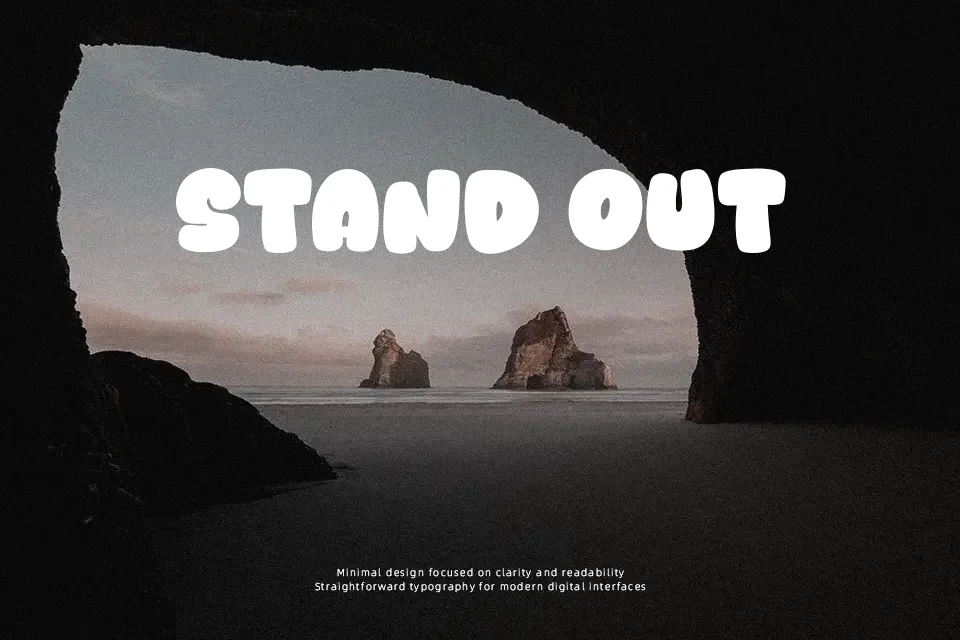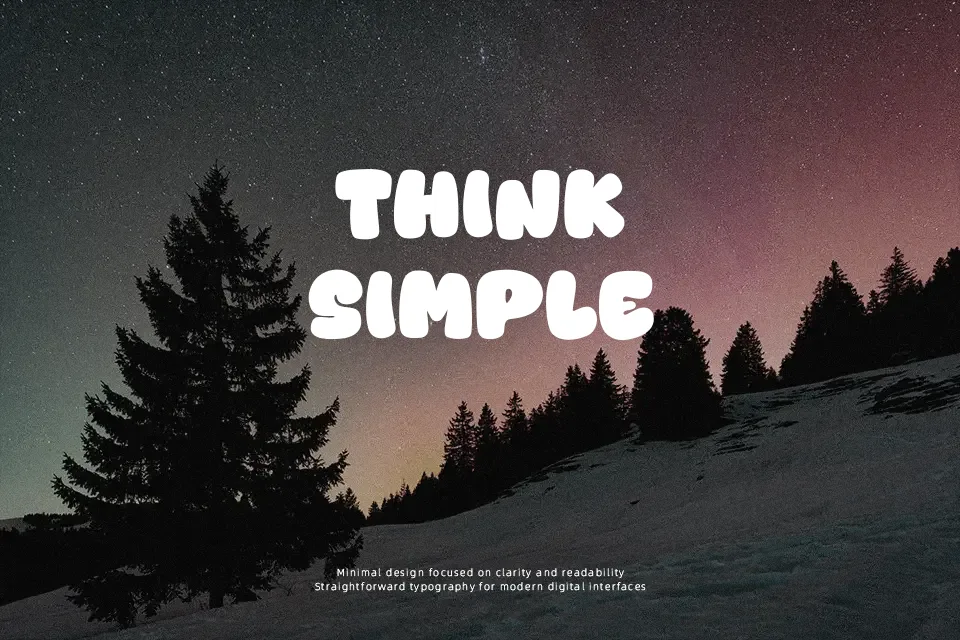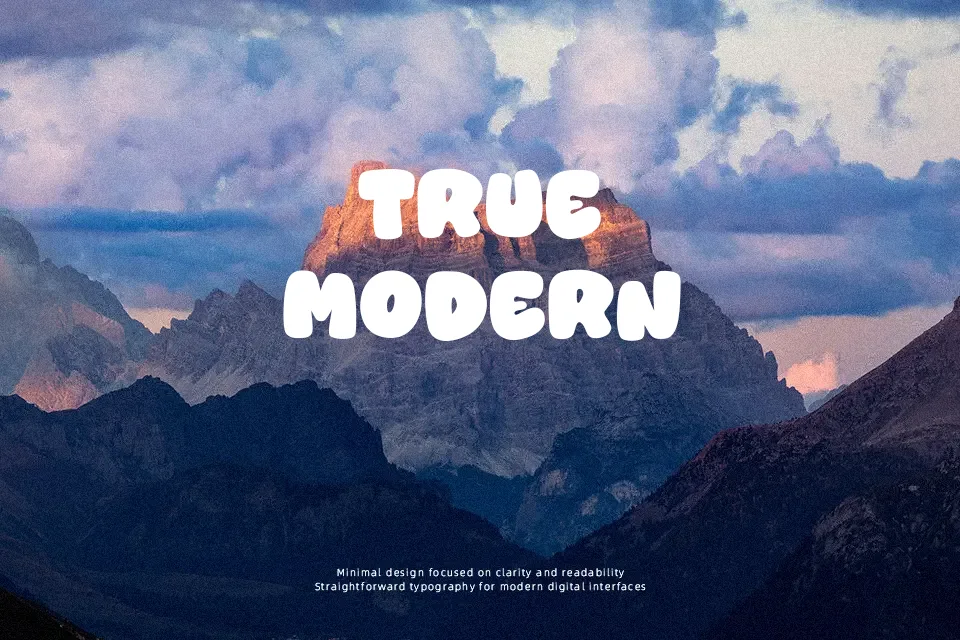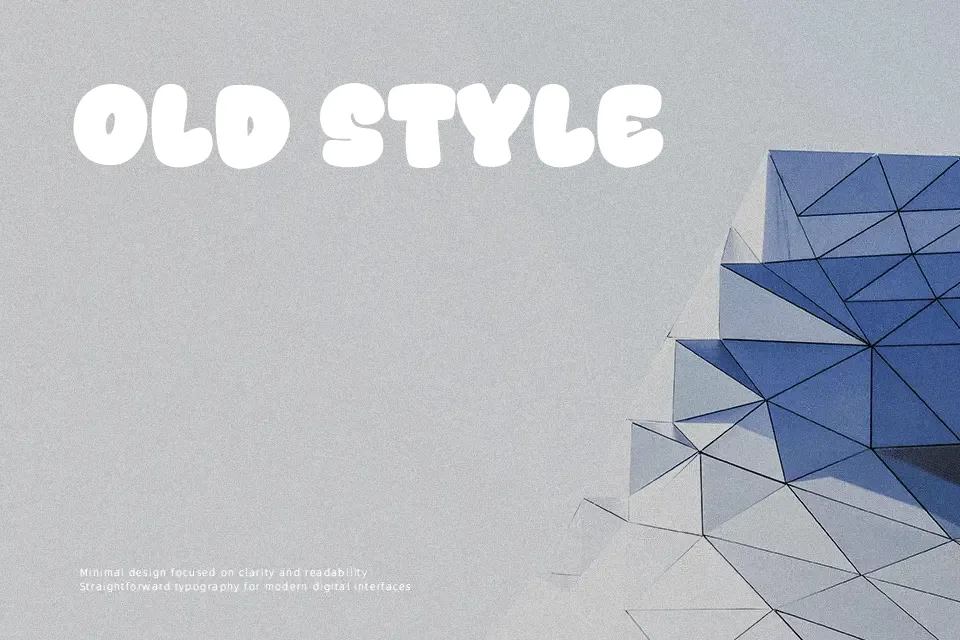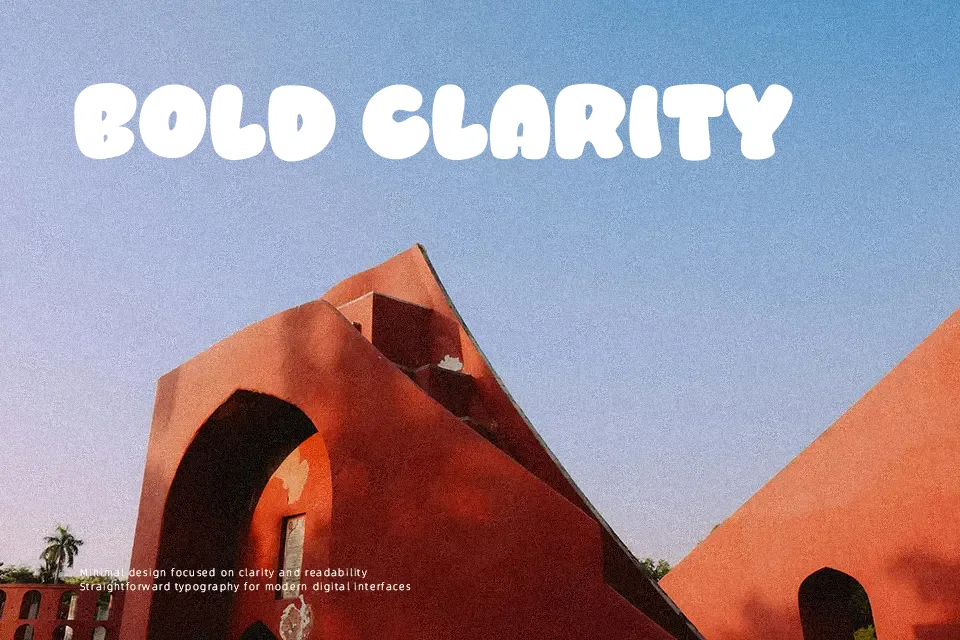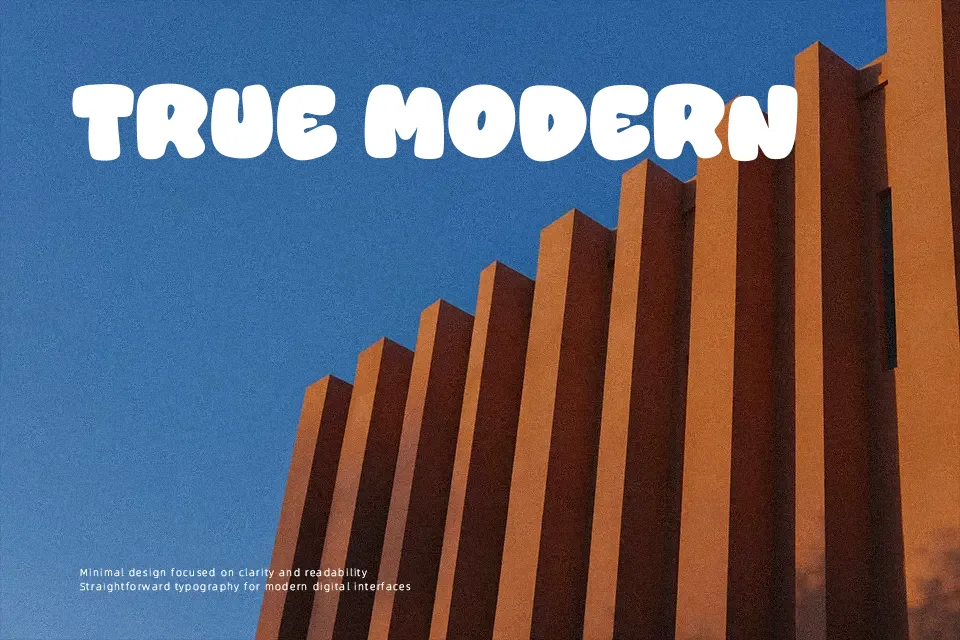
Bold Drop Font
Designed by Khurasan™
Bold Drop is a massive, retro-inspired cartoon typeface defined by its voluminous structure, smooth rounded edges, and thick, expressive strokes. This friendly display font delivers a highly approachable aesthetic with tight spacing that makes each word feel solid and grounded. The bubbly letterforms bring dynamic energy to creative projects, functioning exceptionally well for vibrant snack packaging, engaging children’s book covers, and bold social media graphics that demand immediate attention. While it commands the spotlight in large, punchy headlines, its extra-bold weight and stylized curves make it entirely unsuitable for long paragraphs or small body text where readability sharply drops. Compared to standard sans-serifs, it trades formal precision for maximum playful impact and warmth.
Eye-catching social media graphics
Playful children’s book titles
Vibrant product packaging and merchandise
Small body text and long paragraphs
Corporate or formal legal documents
Minimalist user interface design